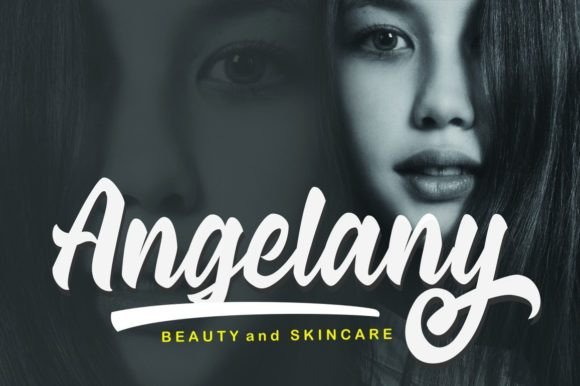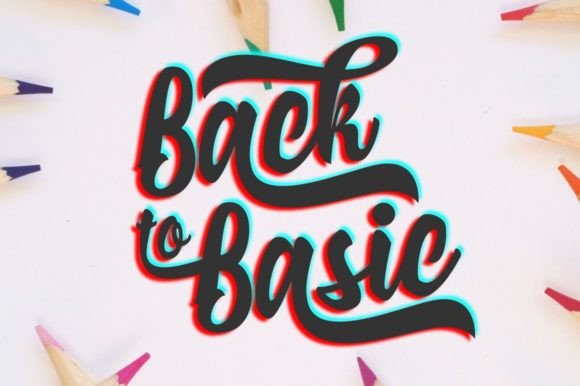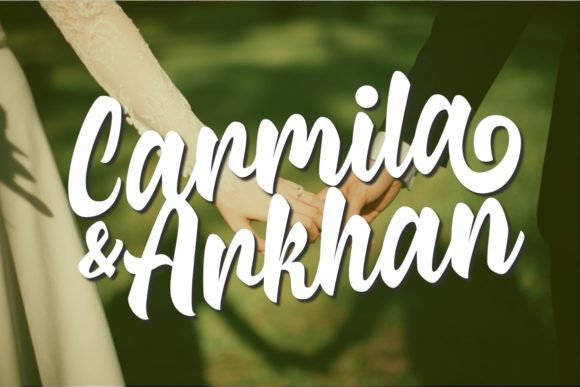
Introduction to Quadrica Font
Have you ever been working on a creative project, pouring your heart and soul into every detail, only to realize that the perfect font is just out of reach? I’m sure many designers can relate to that feeling of frustration and desperation. But what if I told you that there’s a font that can take your design to the next level and make all your creative dreams come true?
Enter the Quadrica Font, a stunning retro script font that’s sure to make your designs stand out from the crowd. With its unique letterforms and high-quality design, this font is perfect for logos, social media posts, packaging, magazine covers, and more. Whether you’re looking for a free download or a reliable design resource, the Quadrica Font has got you covered.
What makes the Quadrica Font truly valuable is its versatility and ease of use. With a transparent background and a range of styles to choose from, you can customize your design to fit any creative project. Whether you’re a seasoned designer or just starting out, the Quadrica Font is an essential tool that’s sure to elevate your work and take your designs to new heights.
Key Features of Quadrica Font
- High-quality design resource ideal for creative projects, offering a unique and modern aesthetic.
Honest Review: Quadrica Font
I recently stumbled upon the Quadrica Font and was excited to try it out for my latest creative project. Overall, I’m impressed with its design and functionality. The font is available for free download, which is a huge plus for designers on a budget.
- ✨ High-quality design: The Quadrica Font is well-crafted and visually appealing, making it perfect for any design project.
- ✨ Transparent background: The font’s transparent background allows for seamless integration with any design element, giving you more flexibility.
- ✨ Wide range of styles: The font comes in various styles, making it suitable for different design projects and themes.
However, there are some limitations:
- ⚠️ Limited customization options: While the font is customizable, the options are somewhat limited, which might not be ideal for designers who like to experiment with different styles.
Overall, the Quadrica Font is a great addition to any designer’s toolkit. While it has some limitations, its high-quality design and transparent background make it a valuable resource for creative projects. If you’re looking for a free font with great design, the Quadrica Font is definitely worth checking out.
The Quadrica Font is perfect for a variety of creative projects, including:
– Social media graphics
– Presentation slides
– Brochures and flyers
– Business cards and stationery
Tips for Getting the Most Out of the Quadrica Font
For the best results, use the Quadrica Font with a transparent background to create a clean and modern look. Experiment with different font sizes, colors, and alignments to find the perfect combination for your project.